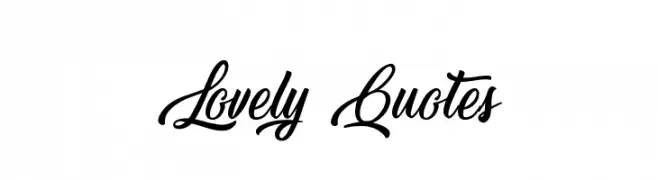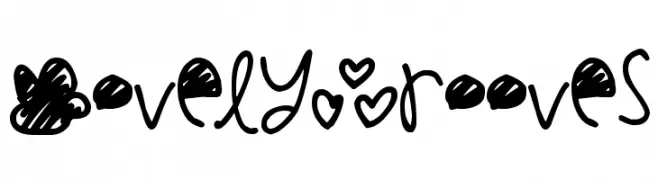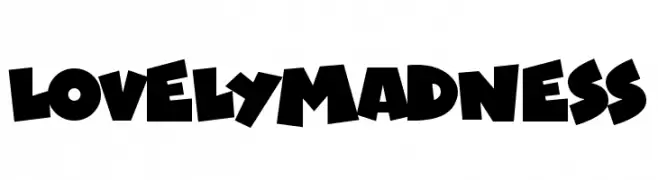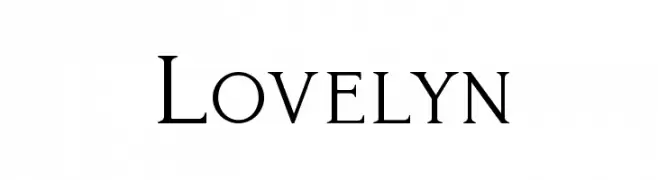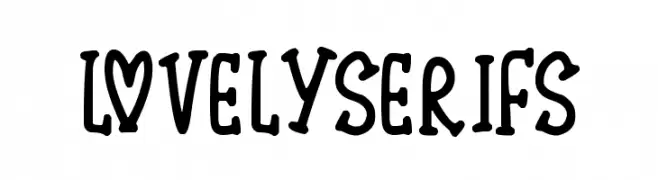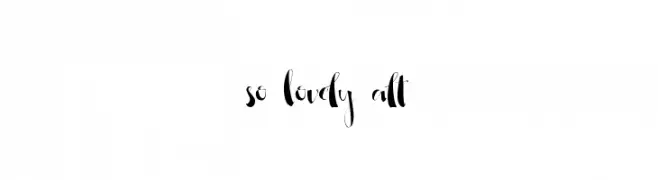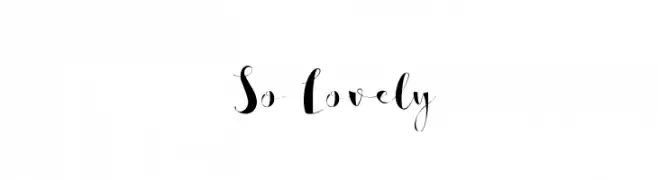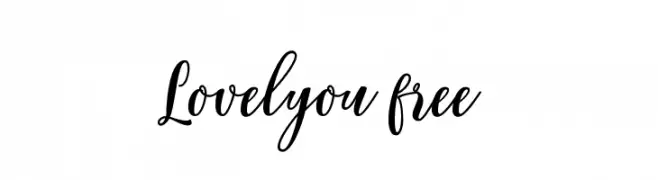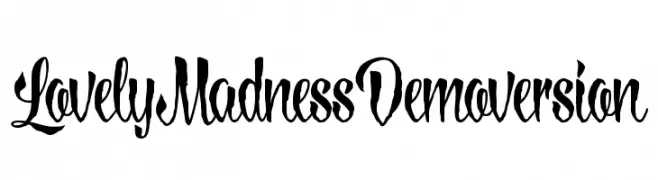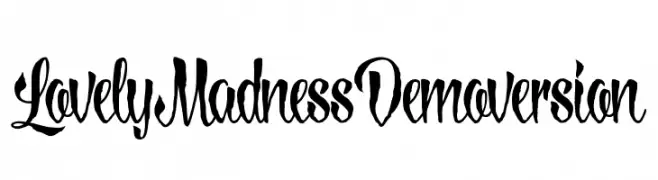
A flowing, cursive script font with elegant, connected strokes.
A classic serif font with elegant strokes and subtle curves, perfect for timeless designs.
A playful, bold serif font with a whimsical and decorative style.
A whimsical, cursive script font with flowing, elegant strokes.
An elegant and sophisticated cursive font with sweeping curves and delicate flourishes.
An elegant, cursive font with flowing, handwritten style.
A bold, expressive script font with a hand-drawn, artistic style.
A bold and expressive script font with dramatic flourishes.